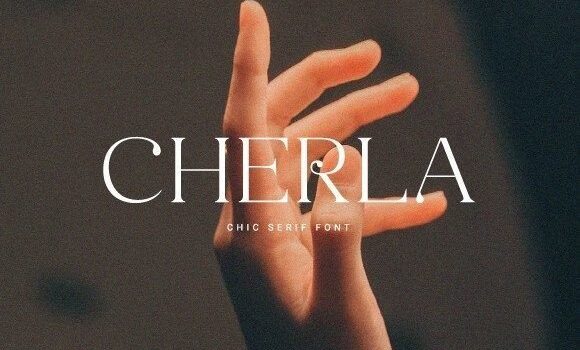
cherla
Cherla Font – Free Download Introduction to Cherla Font Cherla is a modern serif typeface with a pretty and unique touch. 📸 Preview Gallery 6 images 📌 Product Name Cherla Font 👤 Author Prioritype 📂 Category Explore ⬇️ Download Cherla